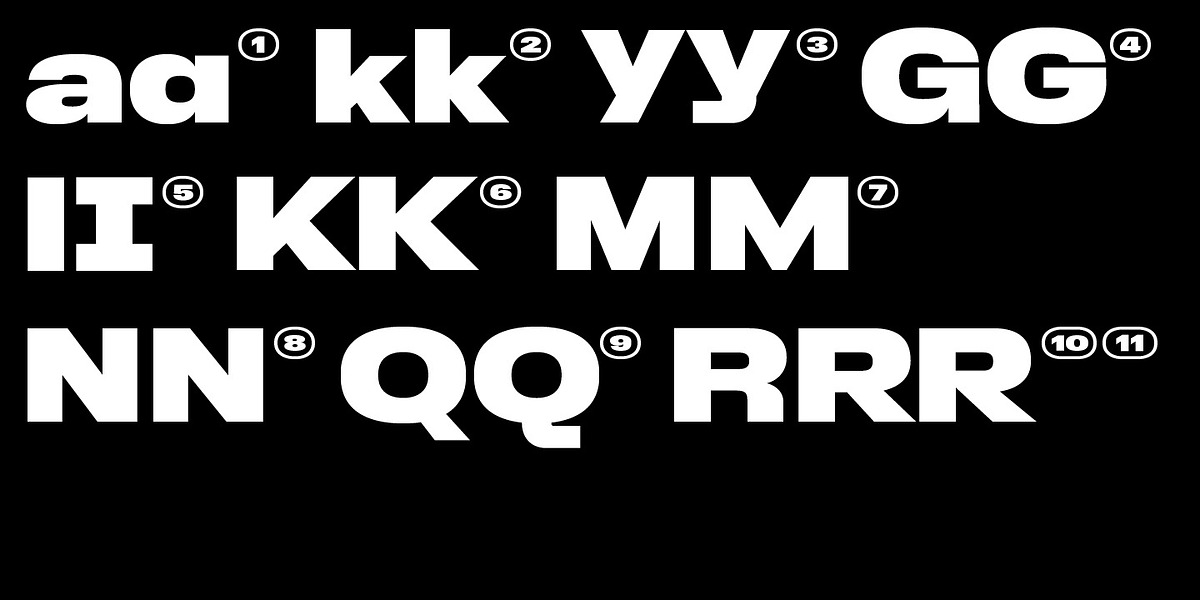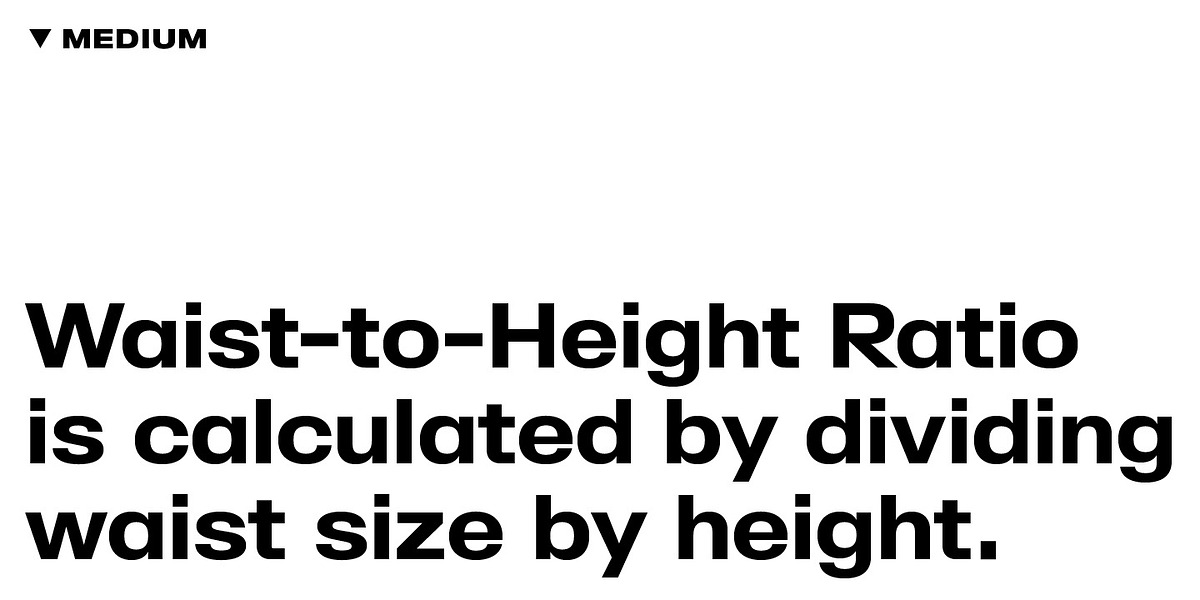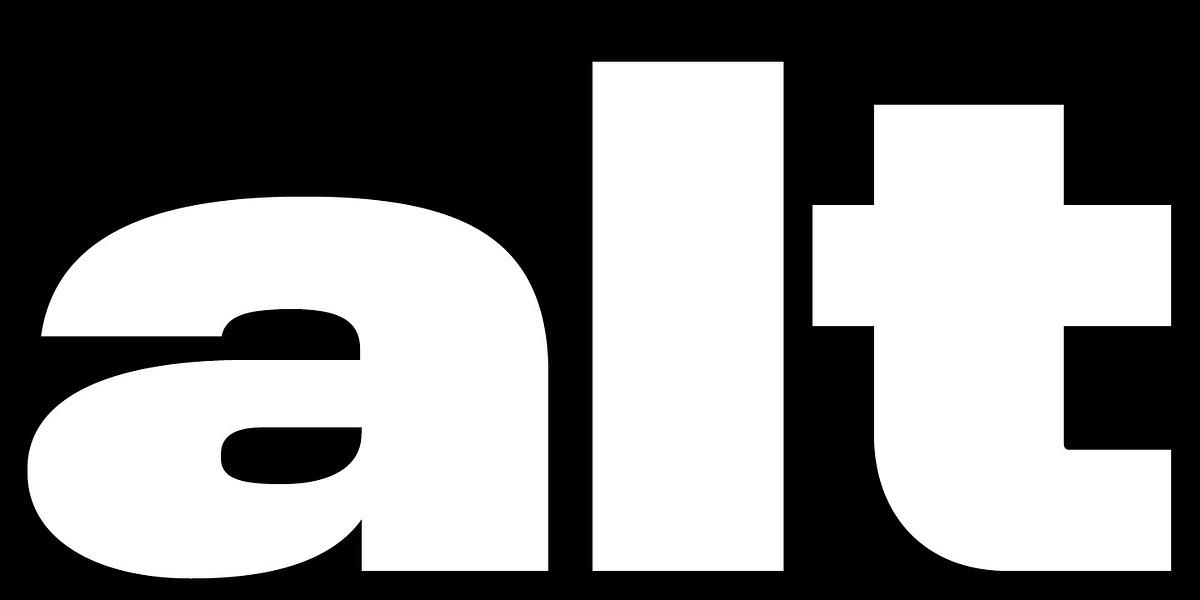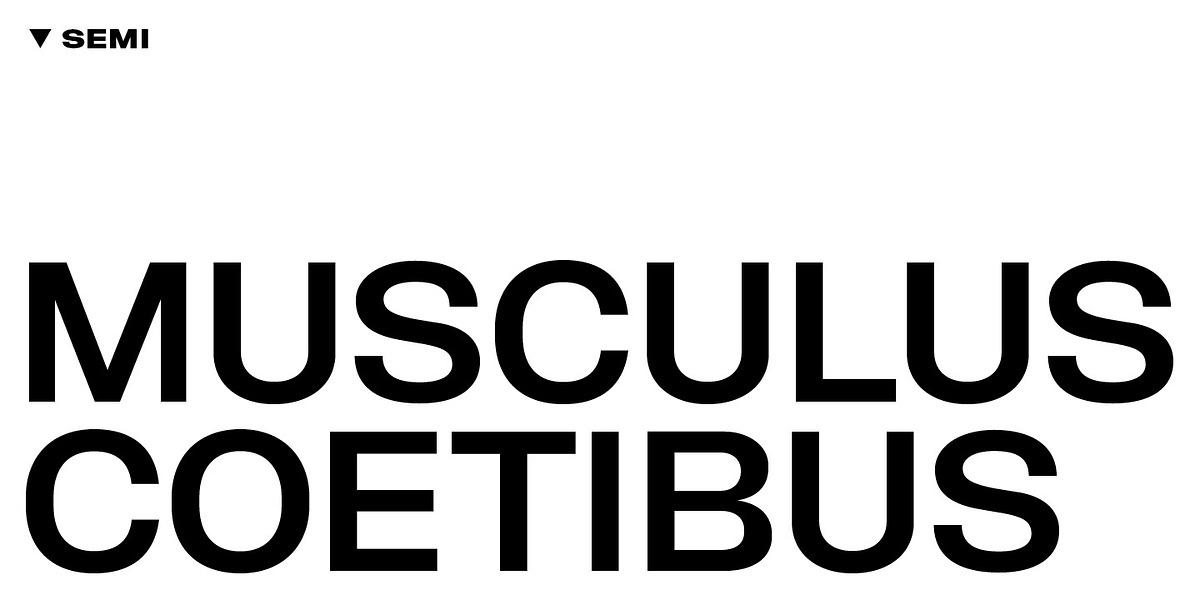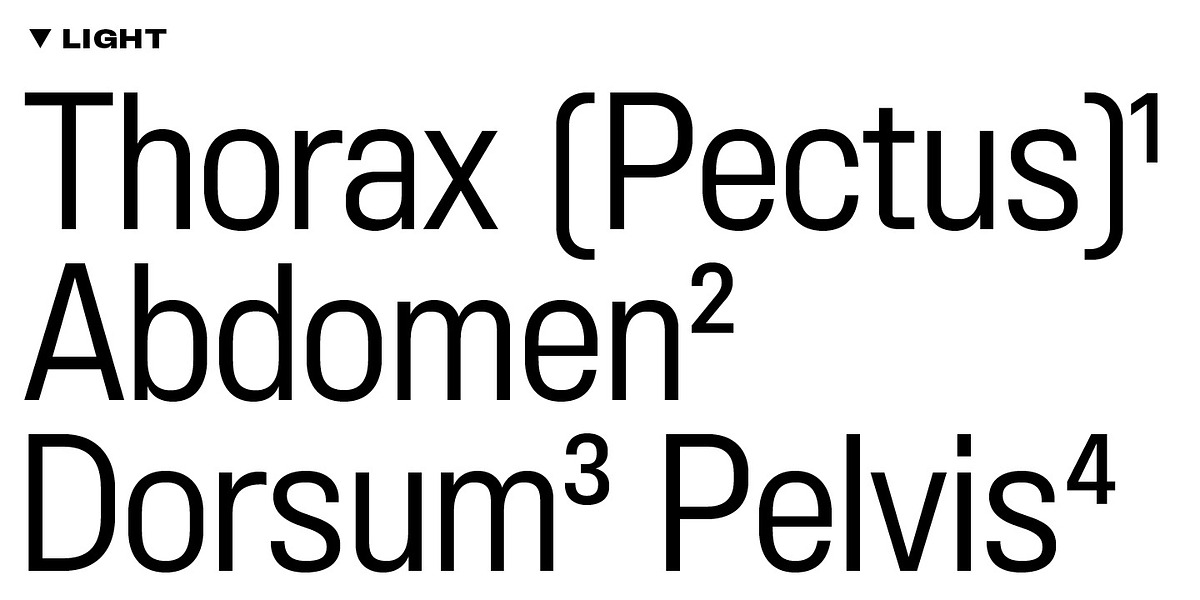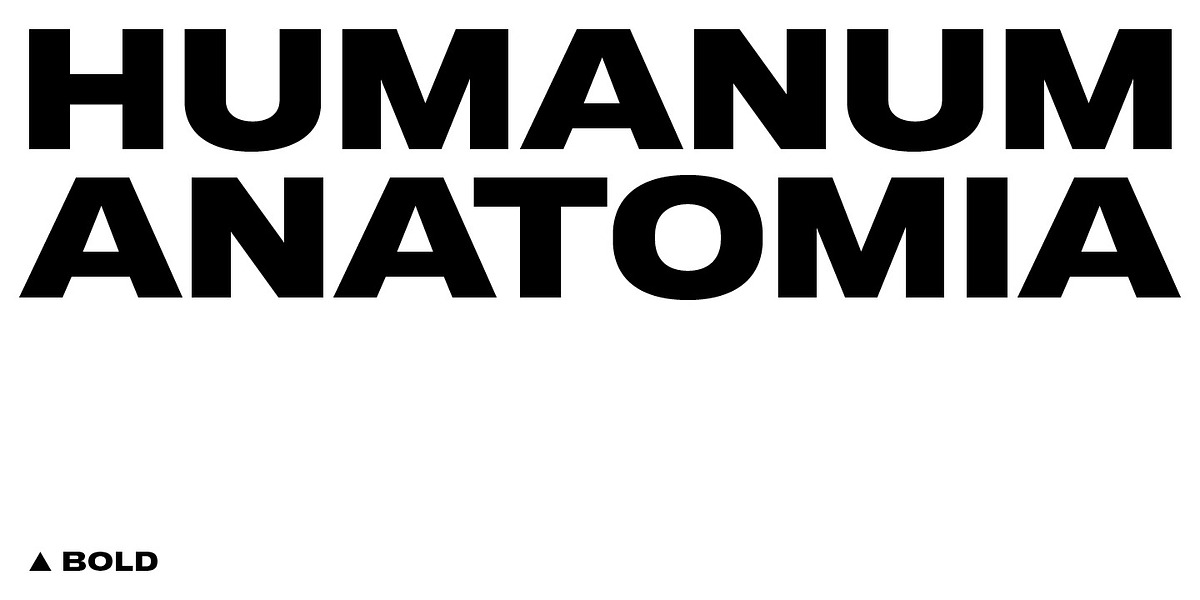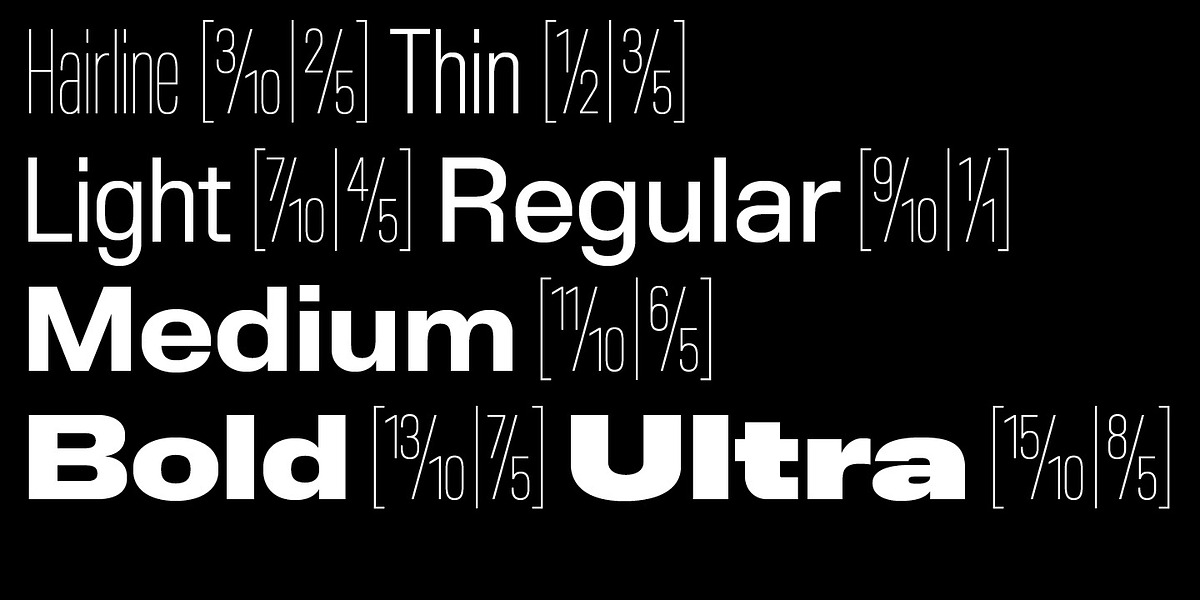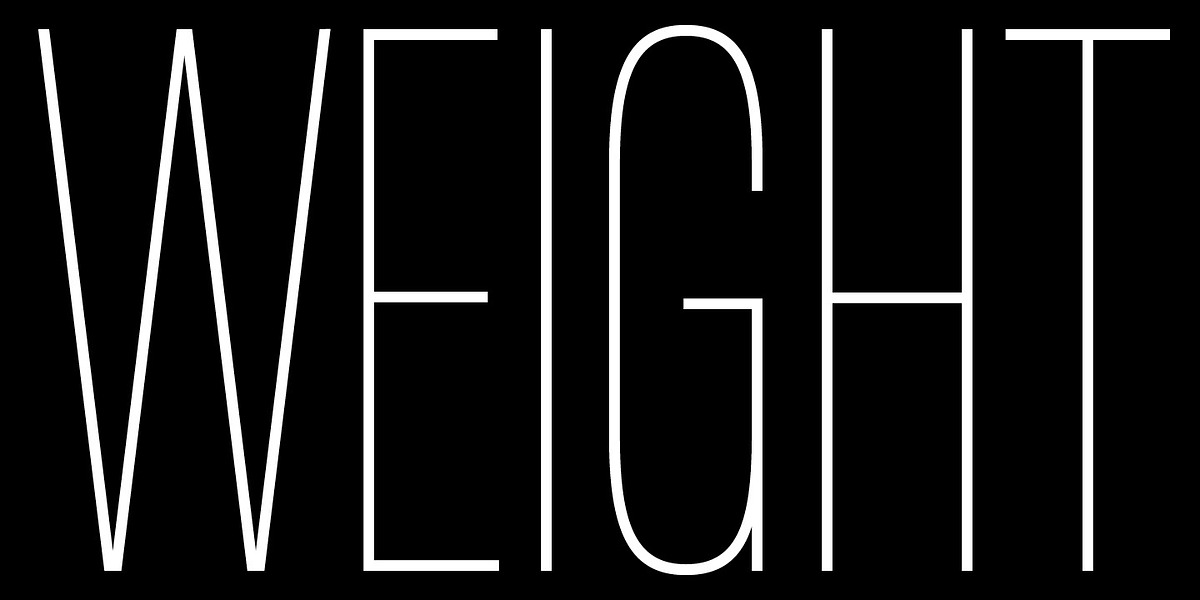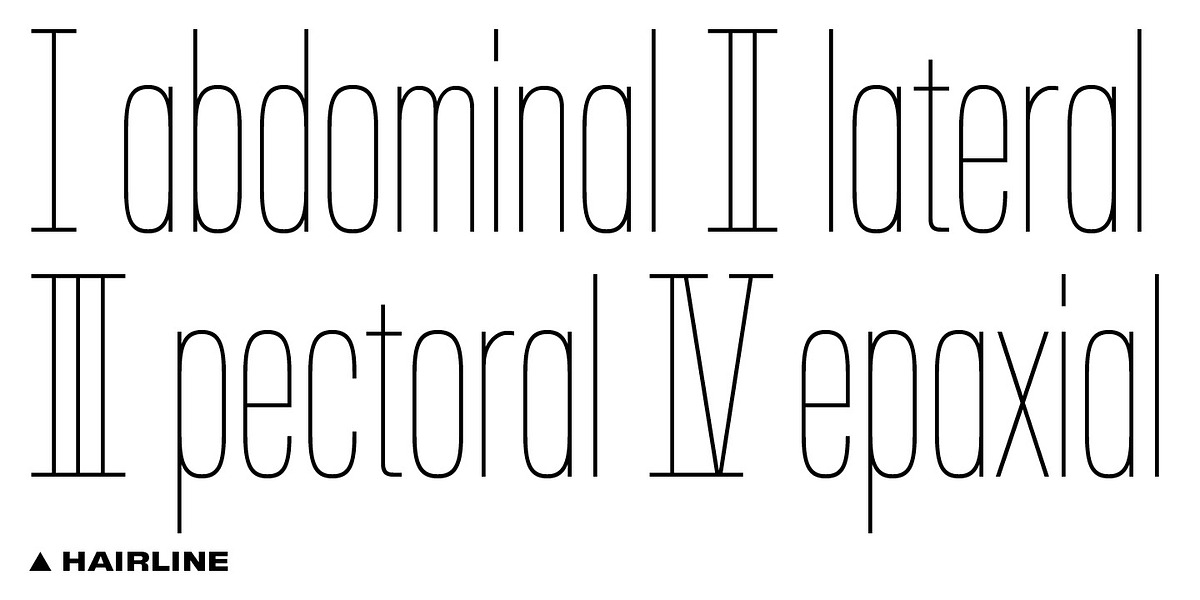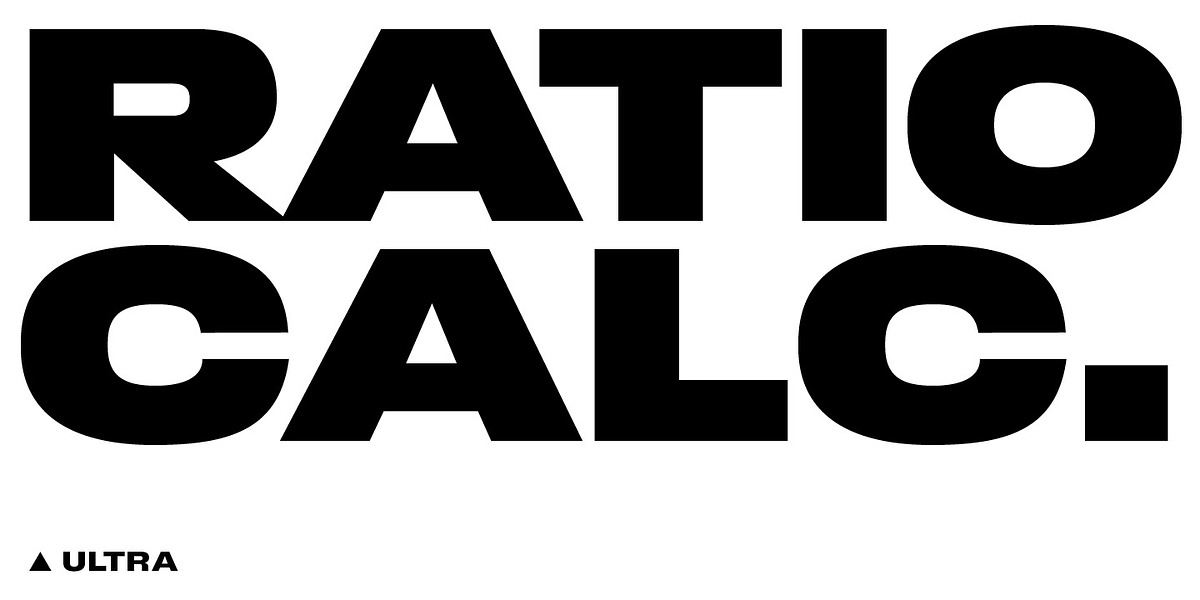
BB Torsos™ Pro
BB Torsos™ Pro is a humanist sans serif font family designed with inspiration from the human body's proportions. It boasts a wide range of styles and weights (13 in total), widths, and stylistic sets, making it incredibly versatile for various applications including display, paragraph text, and branding. The font supports 87 languages and includes a comprehensive set of OpenType features.